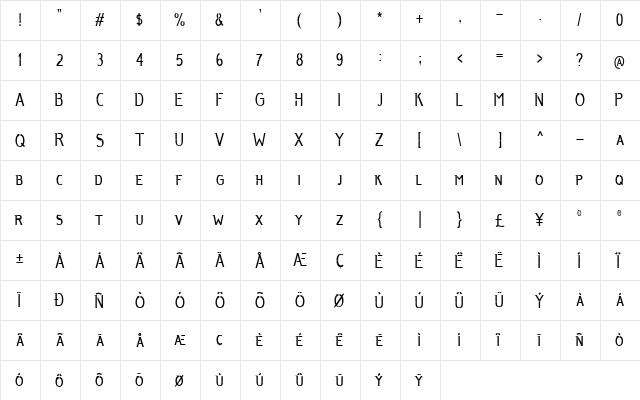
Anggun Sans Regular
Design Context for Anggun Sans Typeface
Anggun Sans is a composed and adaptable typeface that performs quietly and consistently across a wide range of design contexts.